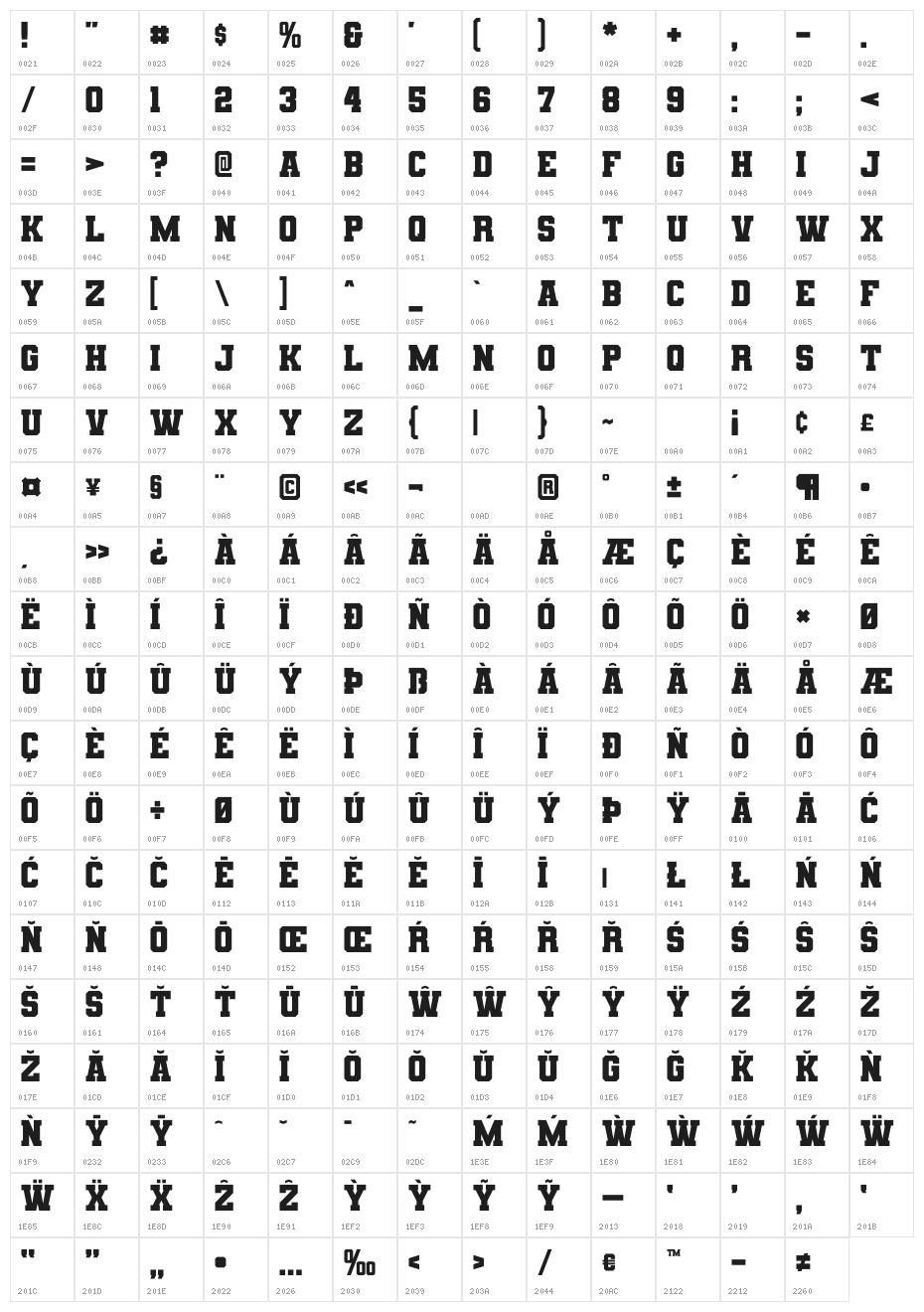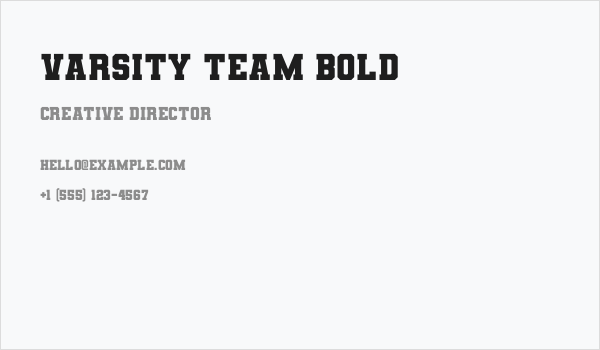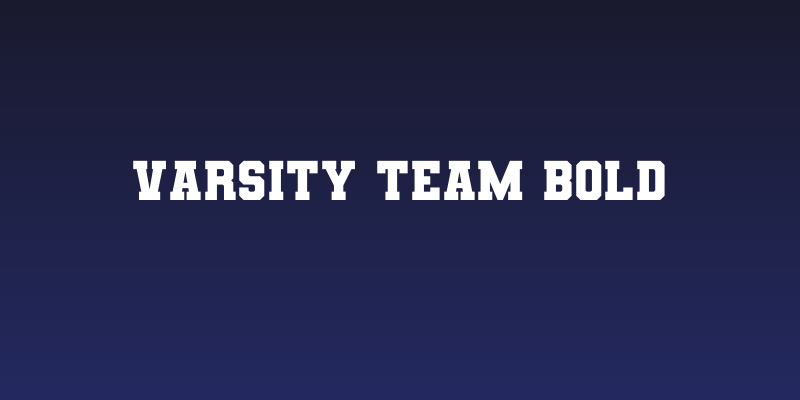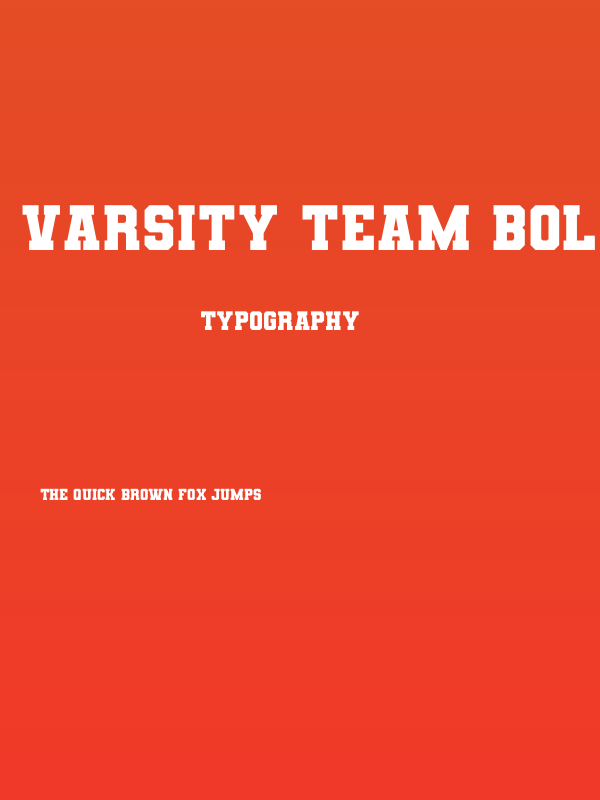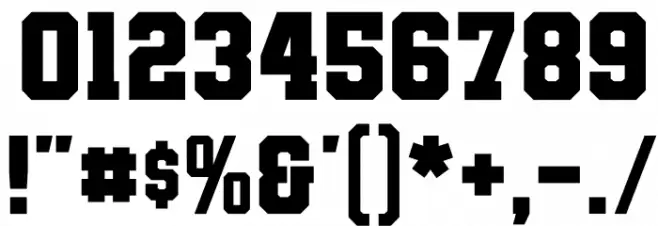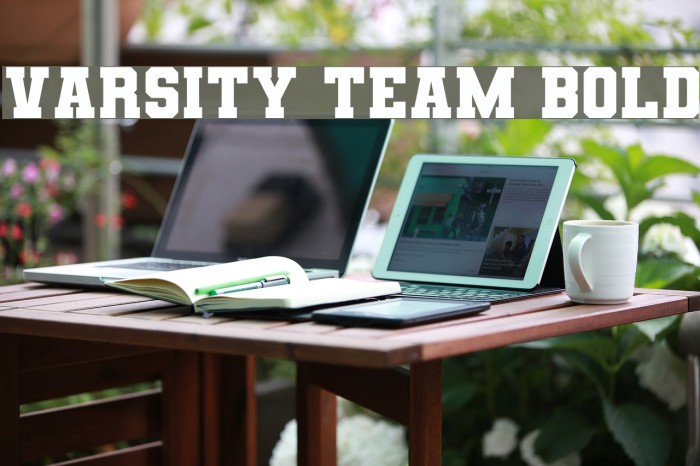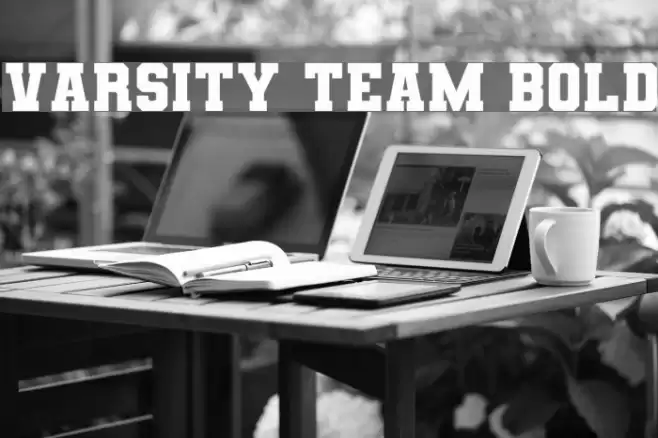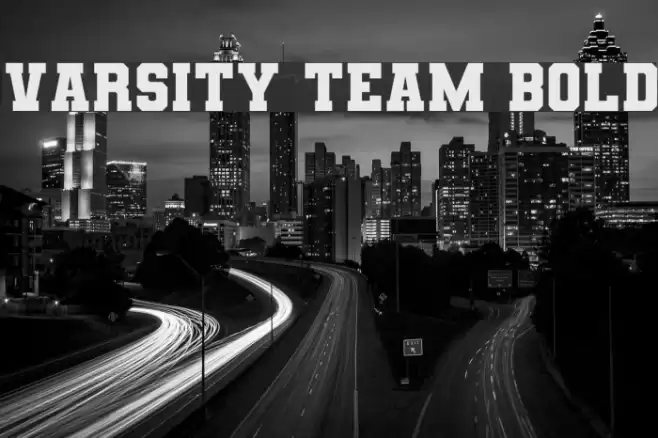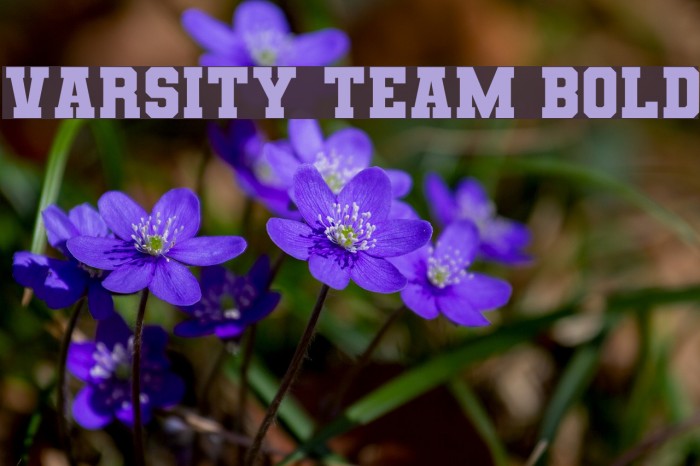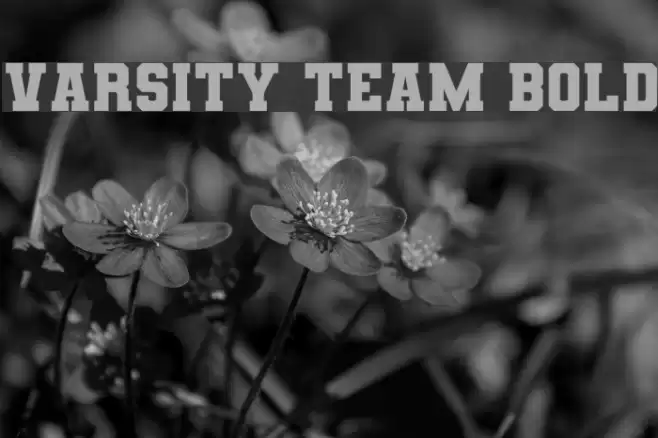
Varsity Team Bold Font
Varsity Team Bold Description
This font features a bold, blocky style reminiscent of classic varsity and collegiate lettering. The characters are uppercase with a strong, commanding presence, making them ideal for attention-grabbing headlines. The design includes sharp edges and a uniform stroke width, contributing to its robust and sturdy appearance. The numbers and special characters maintain the same bold aesthetic, ensuring consistency across all text elements. This font is perfect for projects that require a sporty, energetic feel, such as team logos, event posters, or merchandise branding.
| Overall Style | Classic |
| Proposed Projects | Team logos, sports event posters, merchandise branding, school banners. |